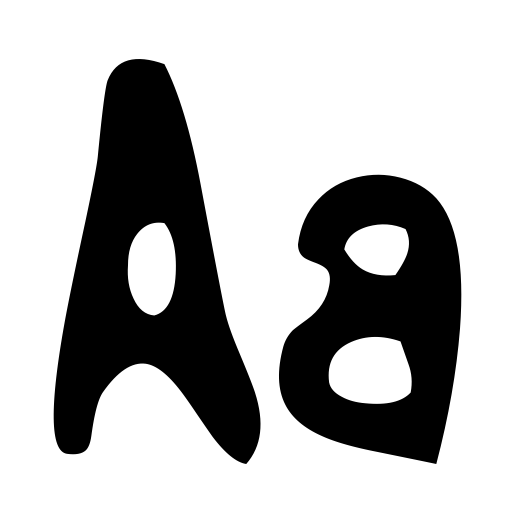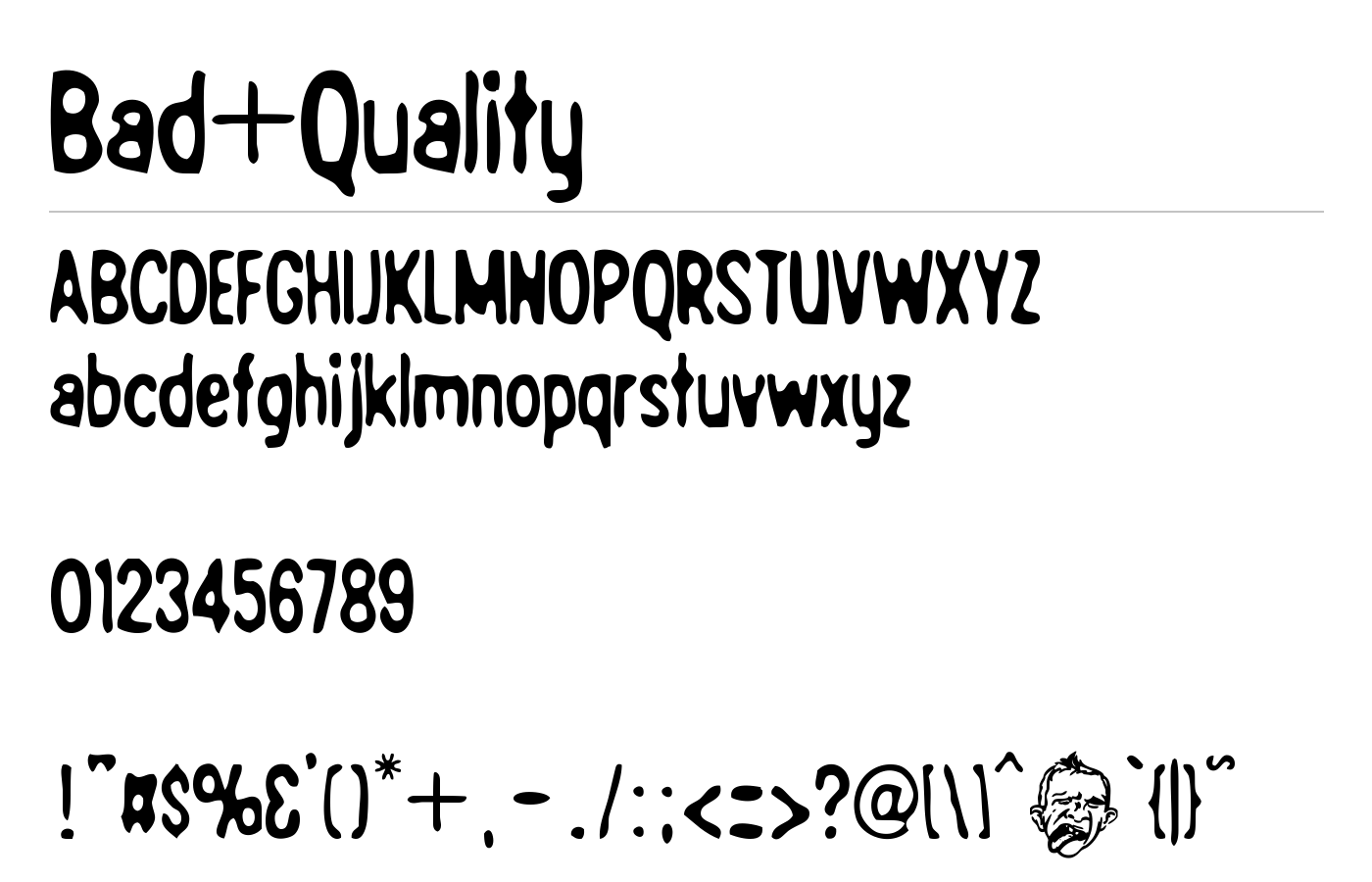
Bad+Quality is a quirky, hand-drawn sans serif font with a playful and irregular character style. Its uneven strokes, varied letter shapes, and whimsical details give it a casual, artistic vibe perfect for creative projects, posters, and informal branding where personality and uniqueness are key. This font works best for headlines or logos that want to convey a fun, unconventional mood rather than formal or polished tones.
Bad+Quality Font
About Bad+Quality Font
| Font family | Bad+Quality Font |